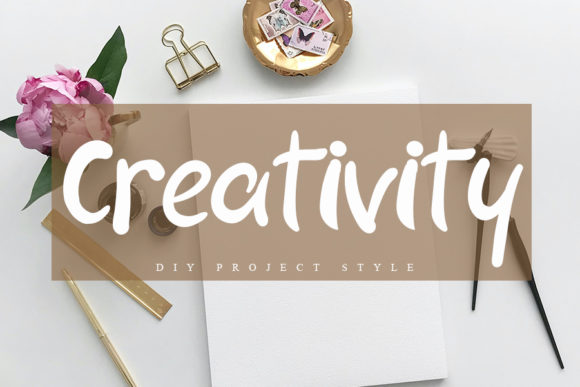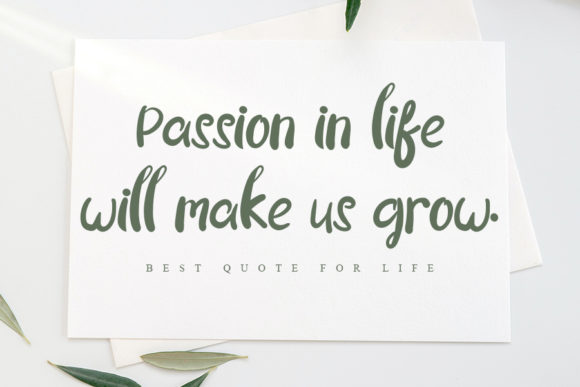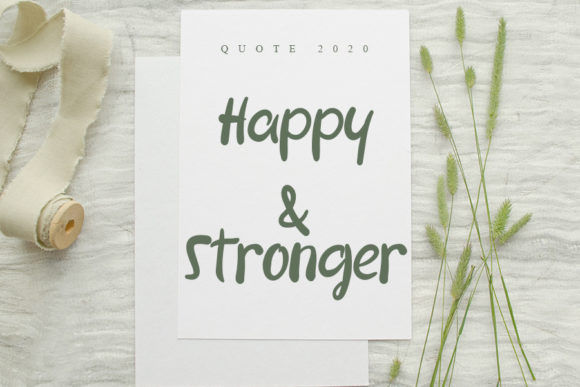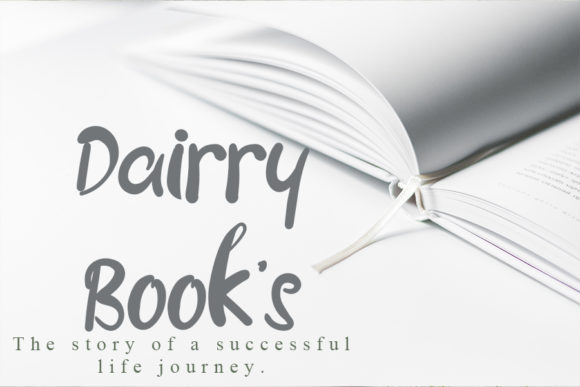
Fantasy Font: Elevate Your Designs with Elegance and Versatility
Fantasy is a delicate and elegant handwritten font that has captured the hearts of designers and crafters alike. Its distinct and well-rounded letters make this font a masterpiece, perfect for creating spectacular designs that exude sophistication and charm. In this article, we’ll dive into the world of Fantasy Font, exploring its unique features, versatility, and applications, as well as provide tips on how to make the most of this beautiful font.
The Beauty of Fantasy Font
Fantasy Font boasts a unique and captivating style that sets it apart from other fonts. Its delicate and elegant handwritten letters are carefully crafted to create a sense of refinement and luxury. The font’s well-rounded letters add a touch of whimsy and playfulness, making it perfect for a wide range of design projects, from wedding invitations and branding materials to digital products and craft files.
One of the standout features of Fantasy Font is its incredible versatility. Whether you’re looking to create a bold and eye-catching design or a soft and feminine one, this font adapts seamlessly to any style or theme. Its flexibility makes it an excellent choice for designers and crafters who want to experiment with different looks and feels without compromising on elegance and sophistication.
Fantasy Font is a dream come true for designers and crafters who want to elevate their work with a touch of elegance and whimsy. Whether you’re creating digital products, printables, or craft files, this font is sure to impress. Its unique and captivating style makes it perfect for:
- Digital products, like printables and planners
- Craft files, including SVG files and cutting files
Tips for Using Fantasy Font
To make the most of Fantasy Font, here are some tips to keep in mind:
- Pair Fantasy Font with complementary fonts to create a unique and harmonious look
- Use the font’s versatility to create a cohesive brand identity across different platforms
- Don’t be afraid to get creative and try out new and innovative design ideas
- Unique and captivating style that sets it apart from other fonts
- Incredibly versatile and adaptable to different styles and themes
- Perfect for designers and crafters who want to elevate their work with elegance and whimsy
- High-quality and well-crafted font that is sure to impress
In conclusion, Fantasy Font is a delicate and elegant handwritten font that is sure to capture your heart. Its distinct and well-rounded letters make it a masterpiece, perfect for creating spectacular designs that exude sophistication and charm. Whether you’re a designer or crafter, this font is a must-have in your collection. So why wait? Fall in love with Fantasy Font and elevate your designs to new heights!